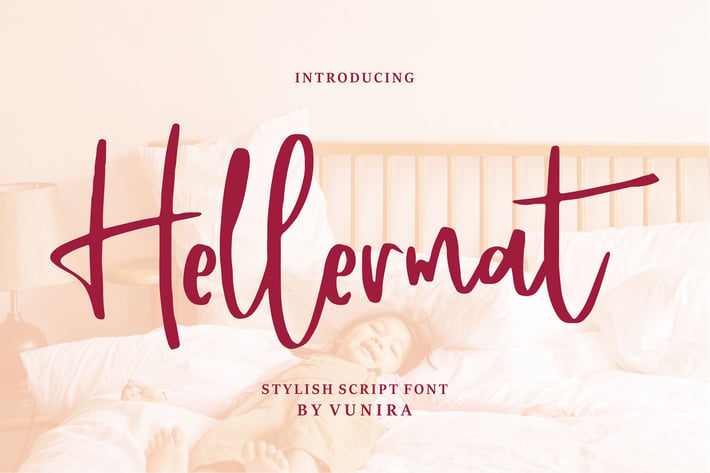
Hellermat | Stylish Script Font
Hellermat | Stylish Script Font with a calligraphy style, So beautiful on invitation like greeting cards, branding materials, business cards, quotes, posters, and more!